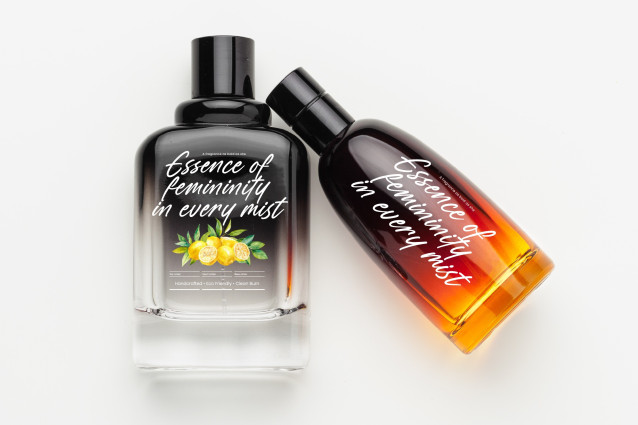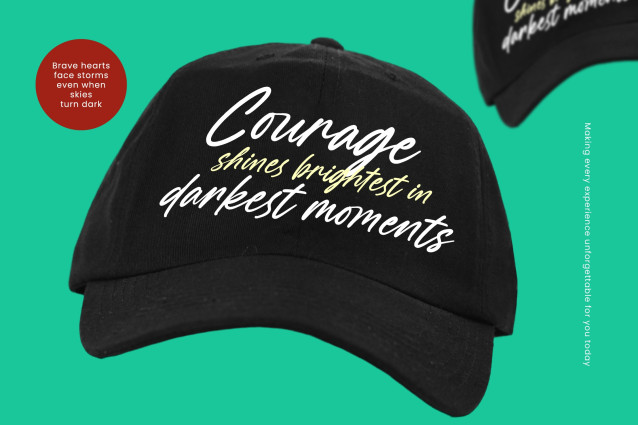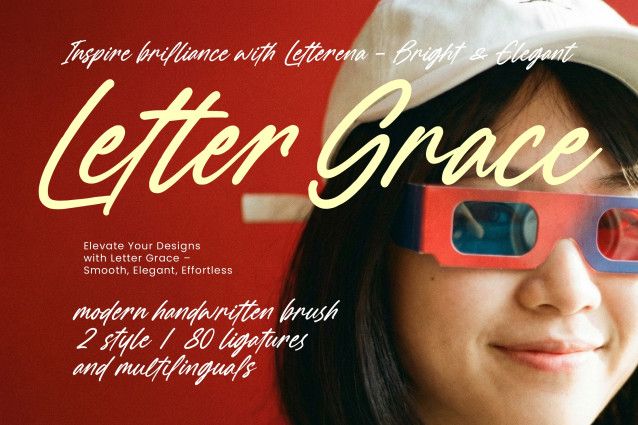
Letter Grace Font
Letter Grace Font – This dynamic script captures the essence of fluid, genuine handwriting, combining a relaxed, contemporary texture with an underlying current of refined elegance. The sweeping connections and high-contrast letterforms ensure maximum visual impact, making it an ideal choice for headlines and statement text that requires both warmth and sophisticated style. It is truly a signature font built for prominence.
Achieve true typographic realism with the robust technical features engineered into Letter Grace – Modern Handwritten Brush. The font package includes two distinct styles and over 80 intricate ligatures, designed meticulously to replicate the smooth, varied texture of real brush strokes. This expansive collection of alternates allows designers to customize letter pairings, preventing repetition and guaranteeing a unique, effortless flow across every application. This level of detail ensures superior quality and unmatched design flexibility.
Demand attention across high-end visual platforms. Letter Grace – Modern Handwritten Brush is the essential asset for projects requiring a personal yet premium touch. It is perfect for luxury branding, bespoke product packaging, apparel design, engaging social media graphics, and impactful magazine editorials. Its characteristic readability and aesthetic vibrancy make it a standout choice for crafting memorable logos and invitations that convey a sense of genuine, custom artistry.
Expand your creative reach without geographical limits. With its extensive multilingual support, Letter Grace – Modern Handwritten Brush adapts seamlessly across global markets, making it incredibly versatile for international projects. This robust global capability ensures that your message maintains its intended aesthetic quality and premium feel regardless of the language. Investing in Letter Grace – Modern Handwritten Brush is investing in truly universal, versatile design communication.